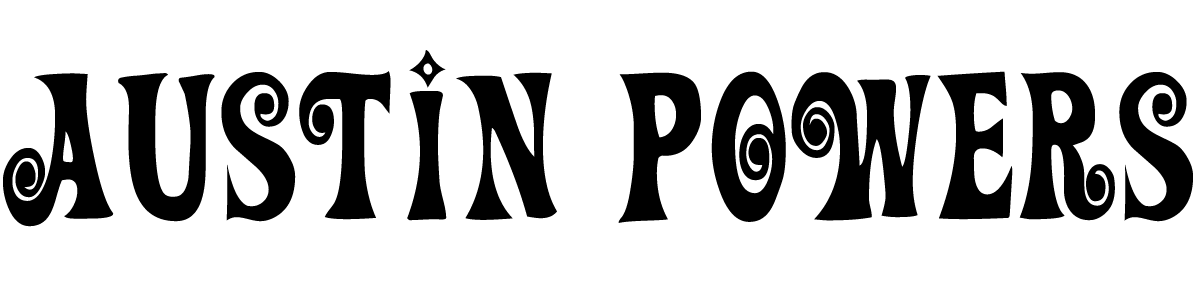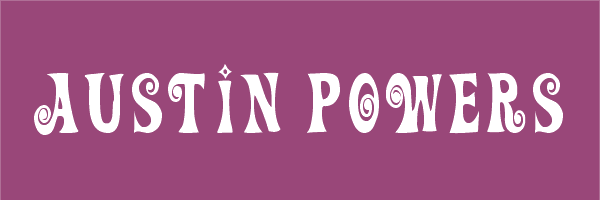
The groovy happenings font is $29.00 here is a link to some free ones. The font used for the film logo is very similar to. Read more twilight zone font style.
Evil.they were directed by jay roach and distributed by new line cinema. She lives in california and resides in san francisco. Austin powers is an american comedy film.